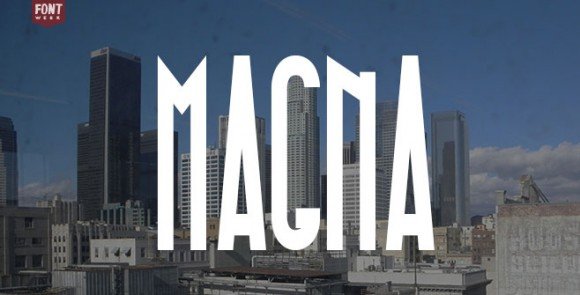
Magna Typerface
Introducing Magna Typerface! Magna designed and shared by Hendrick Rolandez. This is a classic typeface, it has a long, geometric shape. The typeface contains all main characters (from A to Z – capitals & lowercases are the same for the moment) and numbers (from 0 to 9). Good for vintage logo designs, headers and small amounts of text. It contains an uppercase alphabet, lowercase alphabet and numbers.